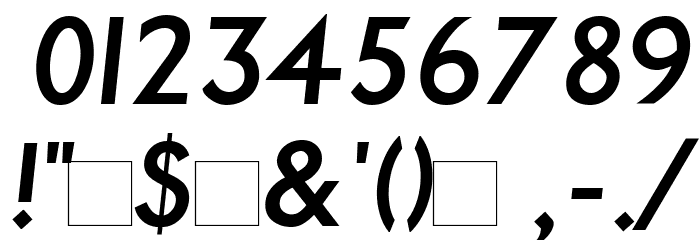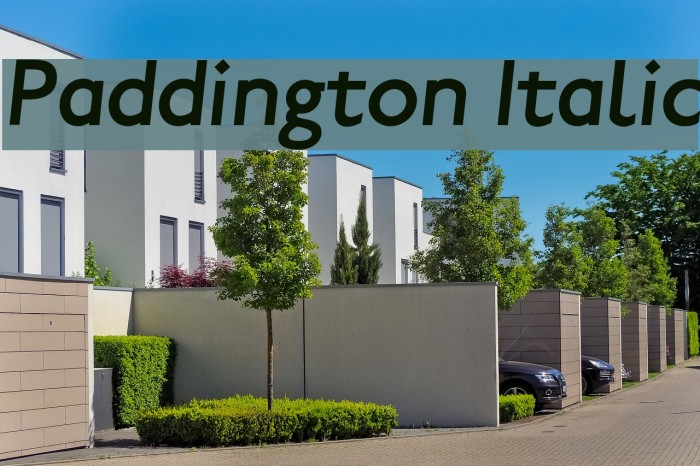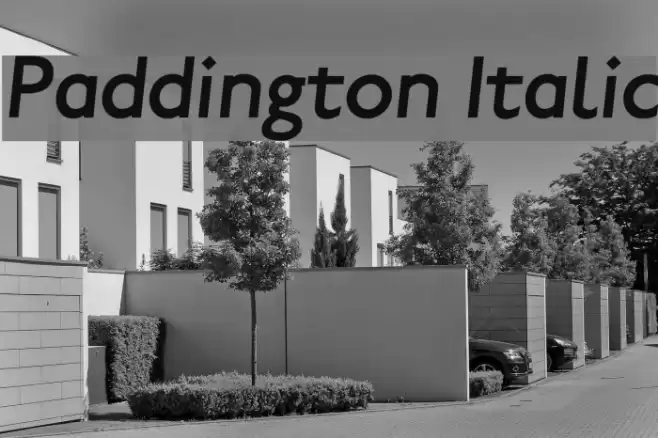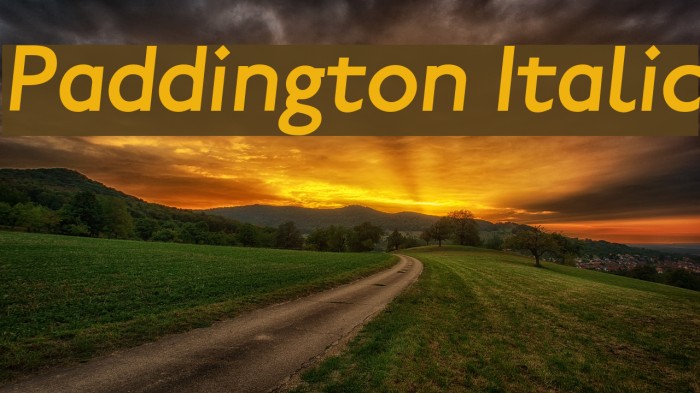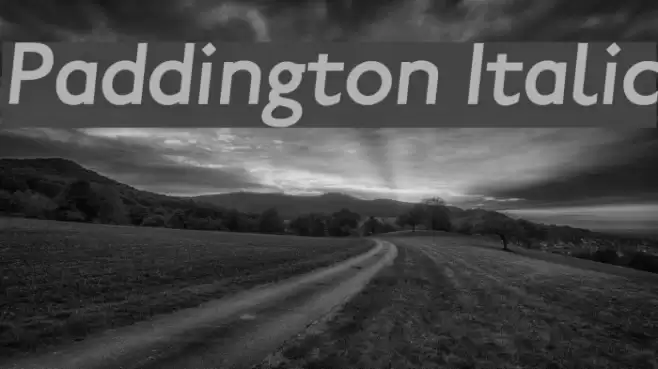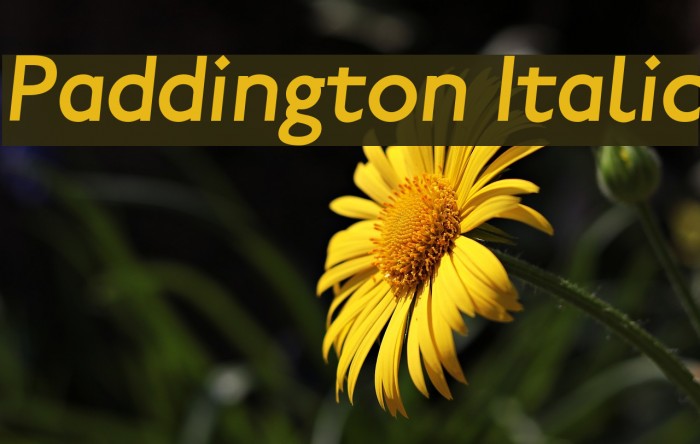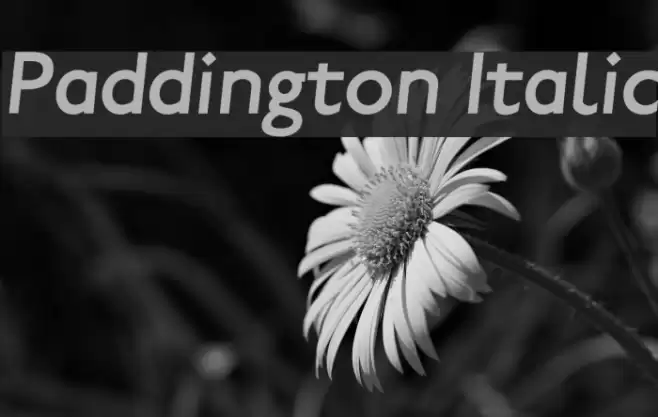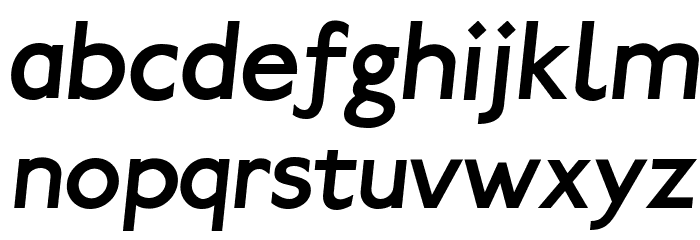
Paddington Italic Font
Paddington Italic Description
This font exhibits a sleek and modern design with a slight italic slant, giving it a dynamic and forward-moving appearance. The characters are clean and well-defined, with smooth curves and a consistent stroke width that provides a harmonious look. The uppercase letters are bold and commanding, while the lowercase letters maintain a friendly and approachable feel. The numerals are clear and easy to read, making them suitable for various applications. Special characters are included, enhancing the font's versatility. Overall, this font combines elegance with readability, making it ideal for both digital and print media.
| Use Case | Headlines, Body text, Logos |
| Proposed Projects | Ideal for branding, advertising, and editorial design projects. |